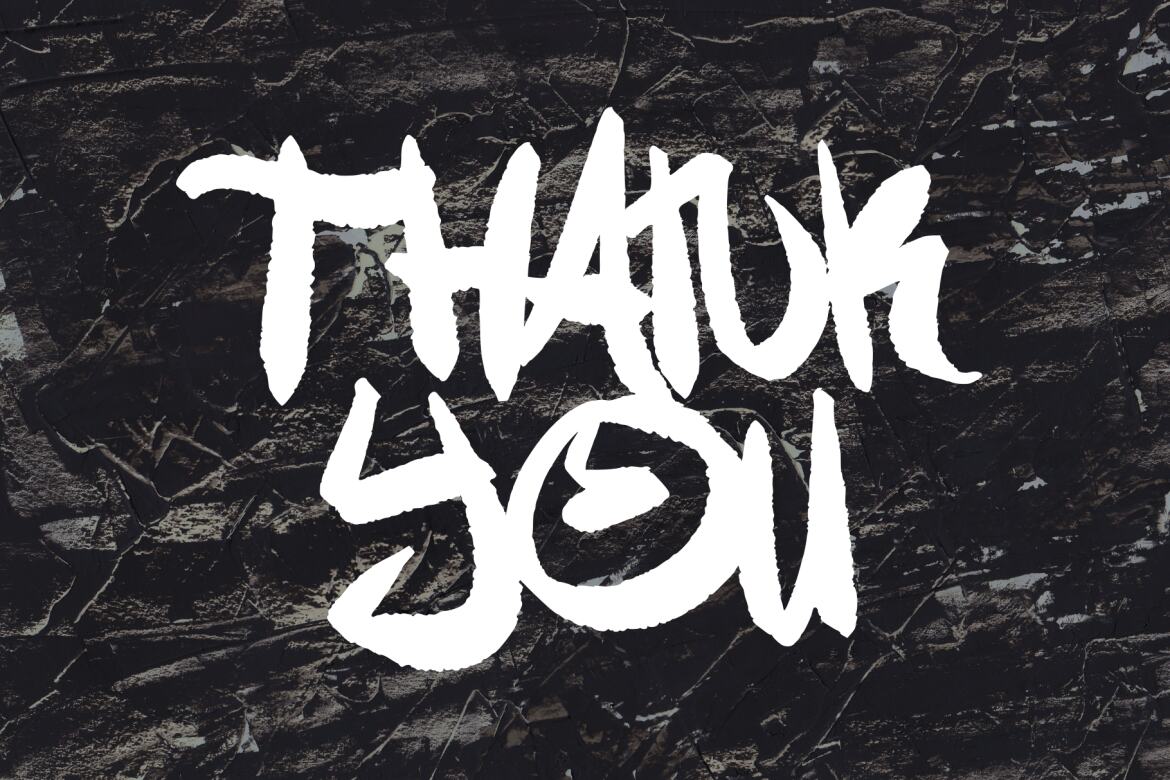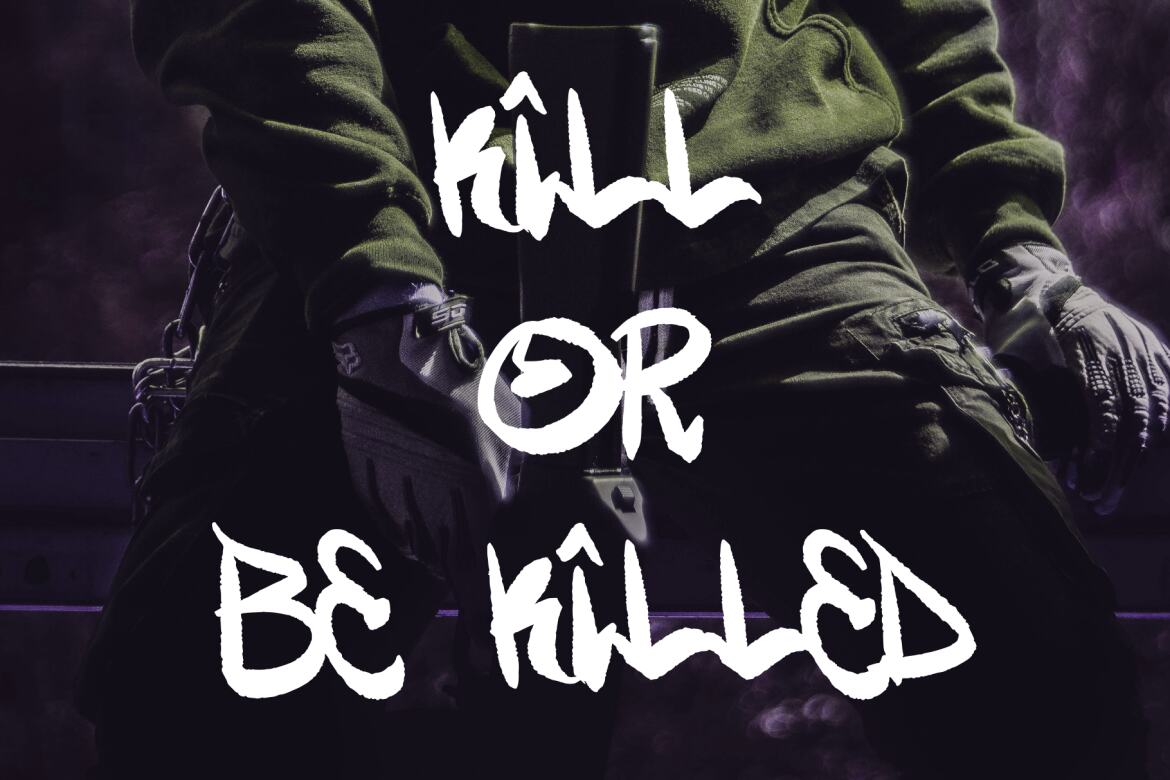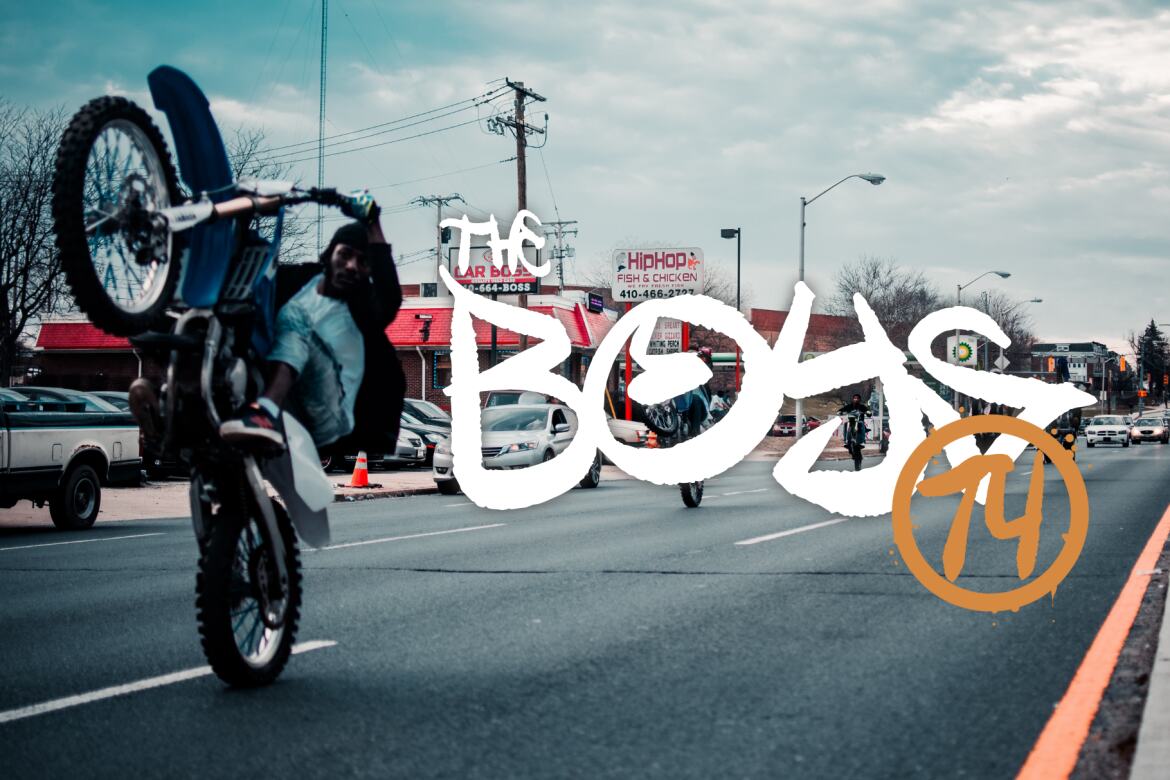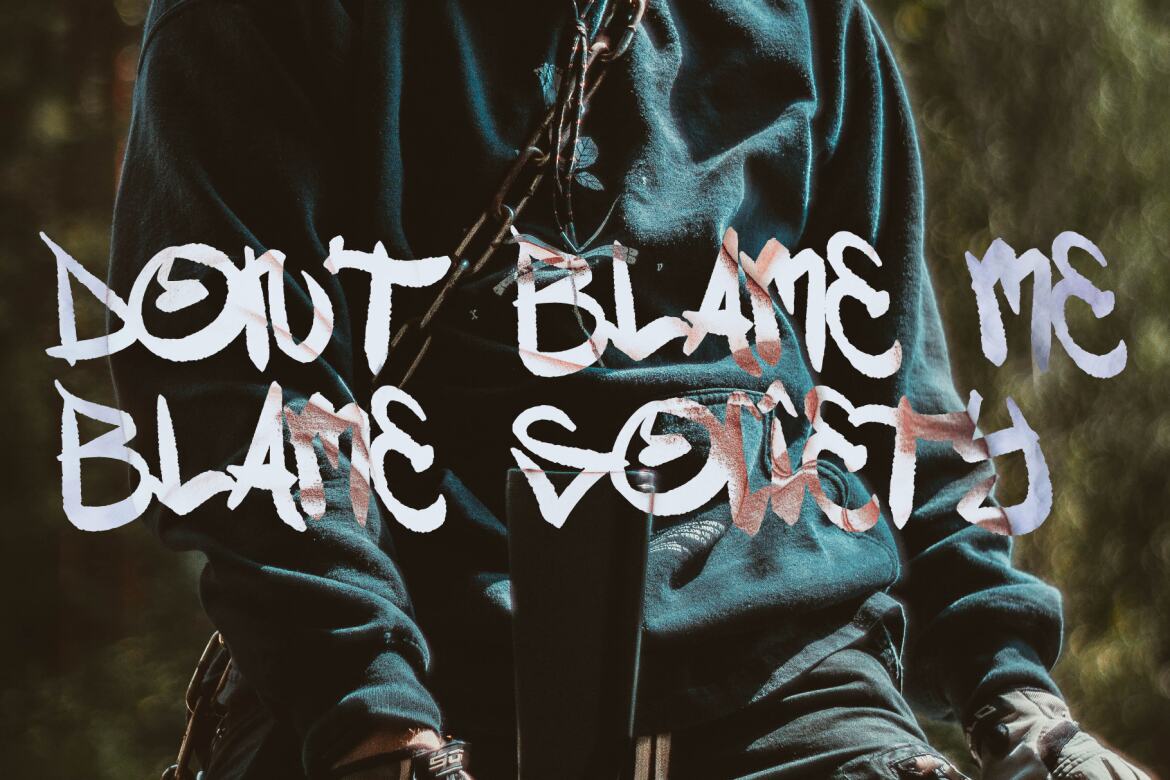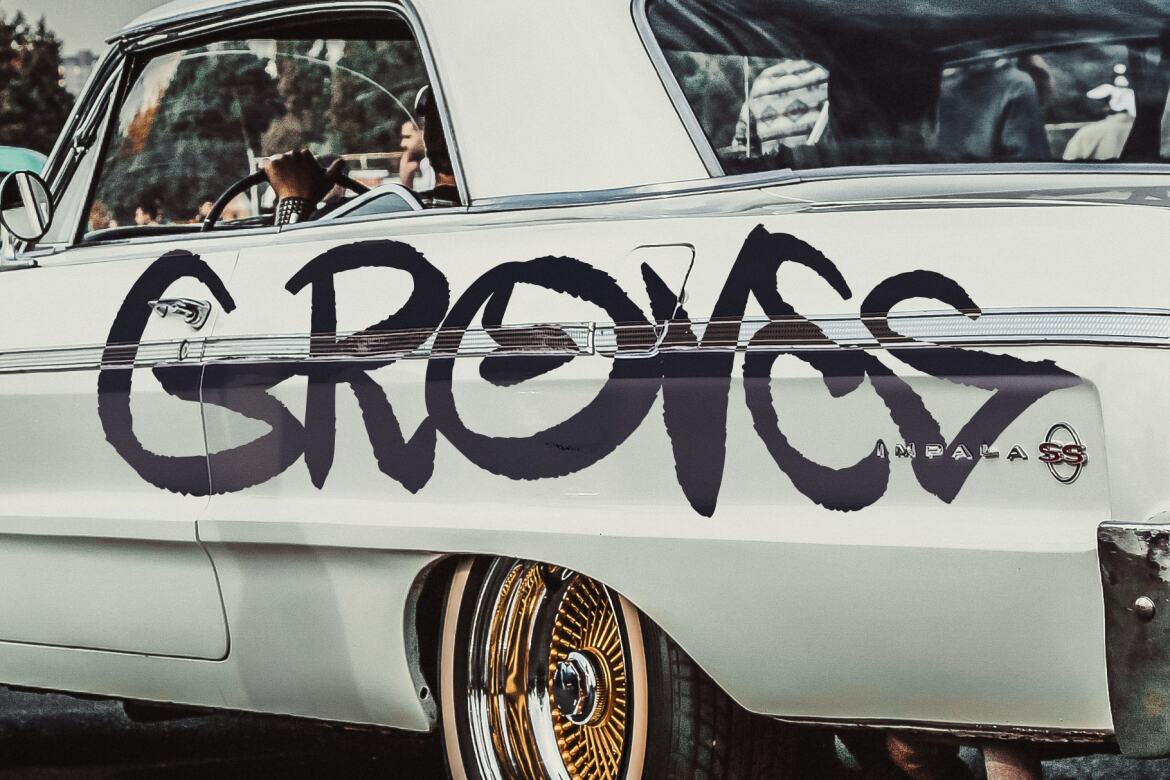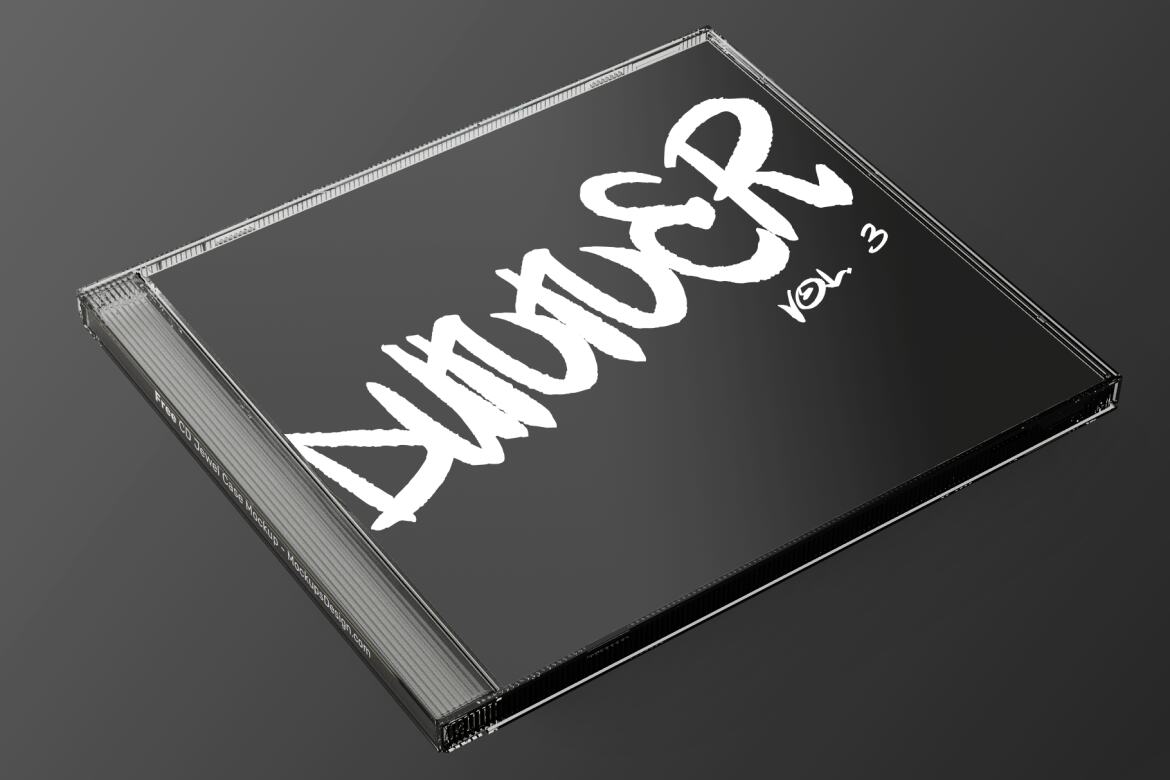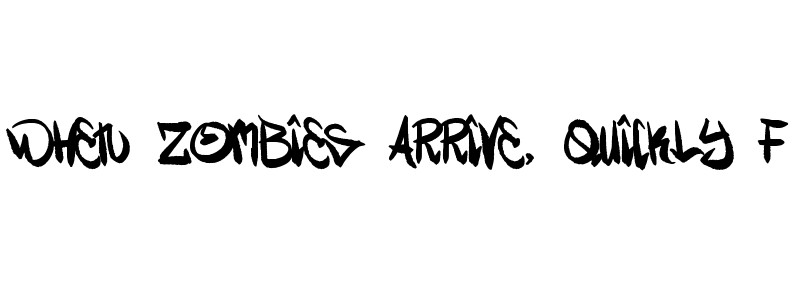
One Oximus - Jagged Graffiti FREE Font
One Oximus Graffiti is a Handwritten font with one line graffiti style. It will elevate a wide range of design projects to the highest level, be it branding, headings, wedding designs, tittle, signatures, logos, labels, movie, video, magazine, logotype, crafting, packaging, advertising and much more!